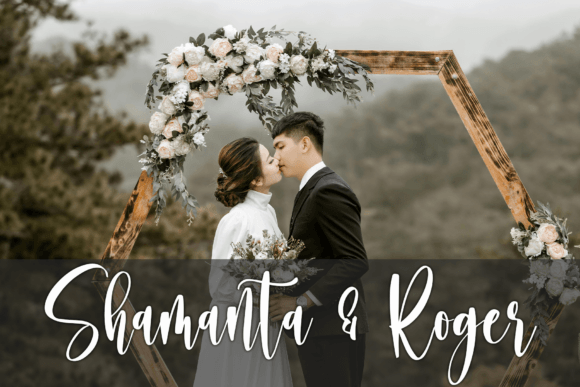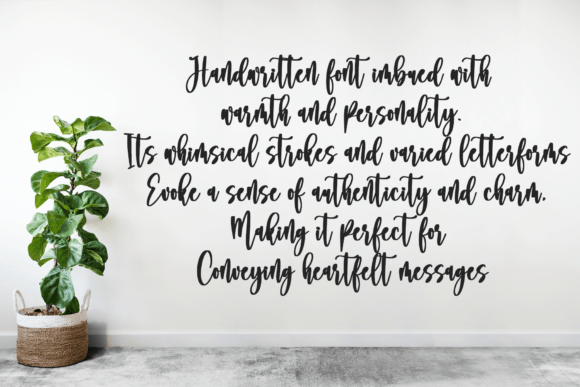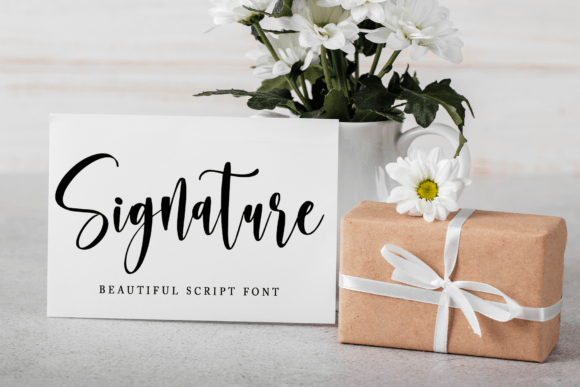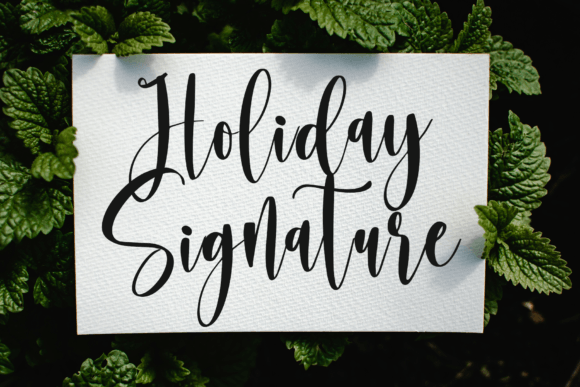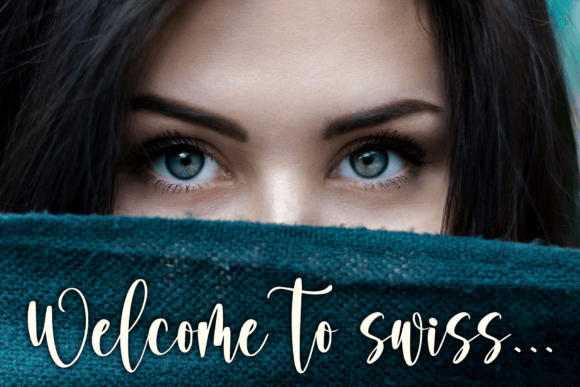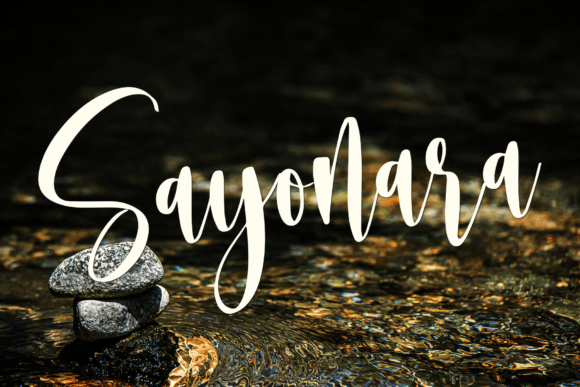
Introduction to Scholar Font
Do you remember the thrill of designing a project for a client, only to have them ask for a last-minute change that throws everything off balance? I do. It’s moments like those that make me appreciate the importance of having the right design resources at our disposal. A high-quality font can be the difference between a project that shines and one that falls flat.
That’s where the Scholar Font comes in – a delightful handwritten font that’s sure to bring warmth and personality to any design. With its whimsical strokes and varied letterforms, it’s the perfect tool for conveying heartfelt messages and adding a touch of authenticity to creative projects. Whether you’re working on a branding project, designing greeting cards, or creating invitations, the Scholar Font is a valuable addition to any designer’s toolkit.
Key Features of Scholar Font
- High-quality design resource with a sophisticated and elegant aesthetic, perfect for creative projects.
- Unique characteristics include a classic and refined design, making it suitable for academic, professional, and corporate projects.
Honest Review: Scholar Font
As a designer, I’m always on the lookout for high-quality fonts that can elevate my creative projects. The Scholar Font is one such resource that caught my attention, and I’m excited to share my honest review with you.
What works well about the Scholar Font is its elegant and sophisticated design. The font’s clean lines, precise curves, and subtle flair make it perfect for academic and professional applications. The transparent background also makes it easy to layer over images or other design elements.
- ✨ Elegant and sophisticated design
- ✨ Perfect for academic and professional applications
- ✨ Transparent background for easy layering
- ✨ High-quality font files for crisp rendering
However, there are a few limitations to consider. The font only comes in a few weights, which might limit its versatility for more complex projects. Additionally, the font might not be suitable for body text, as it’s more suited for headings and titles.
Scholar Font
Tips for Getting the Most Out of Scholar Font
Experiment with different font sizes and colors to create a unique visual identity for your design. Combine Scholar Font with other high-quality design elements to achieve a professional look.
Scholar Font is perfect for academic and professional presentations, resumes, and business cards. Its elegant design makes it ideal for any project requiring a sophisticated look.